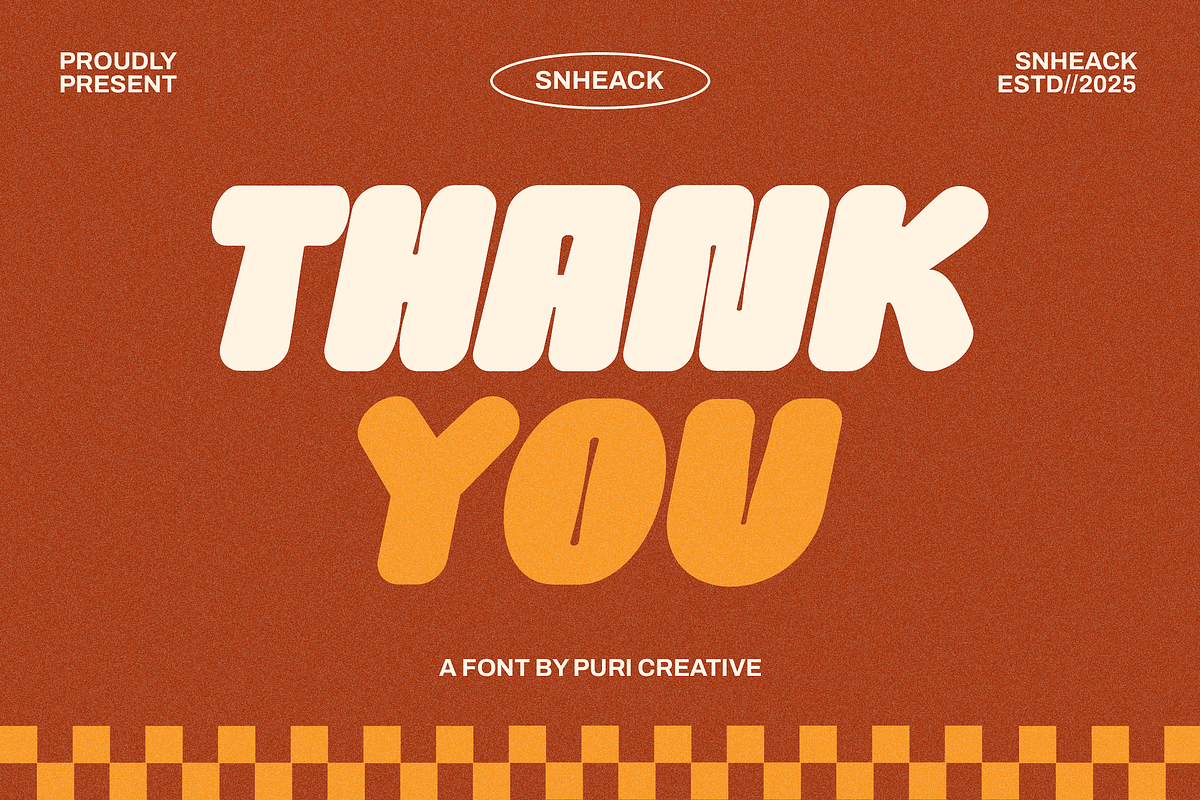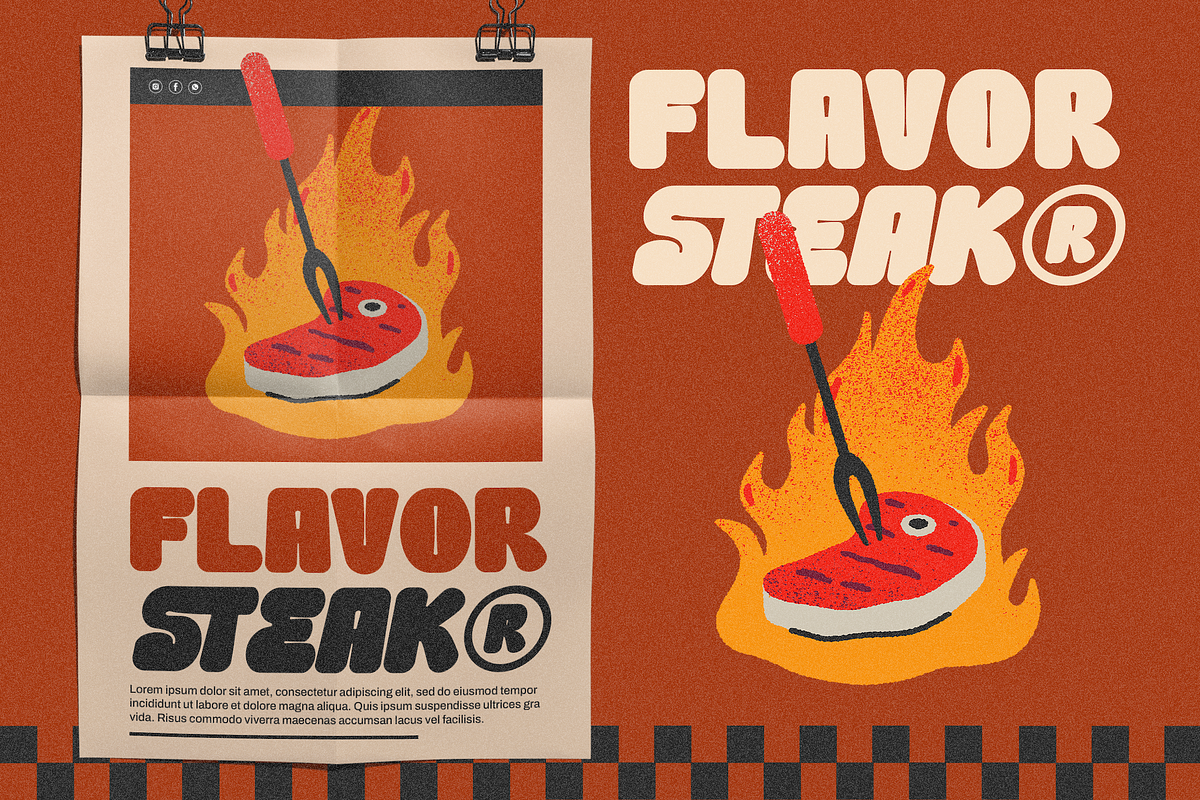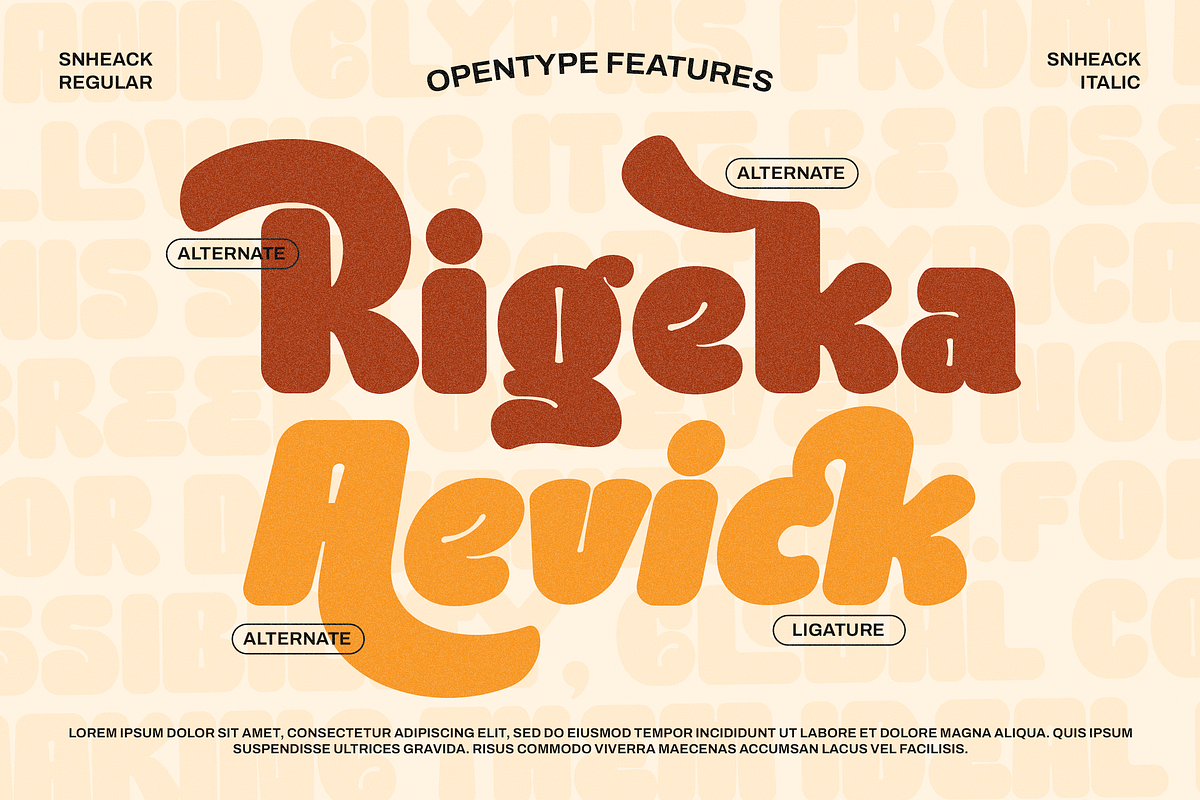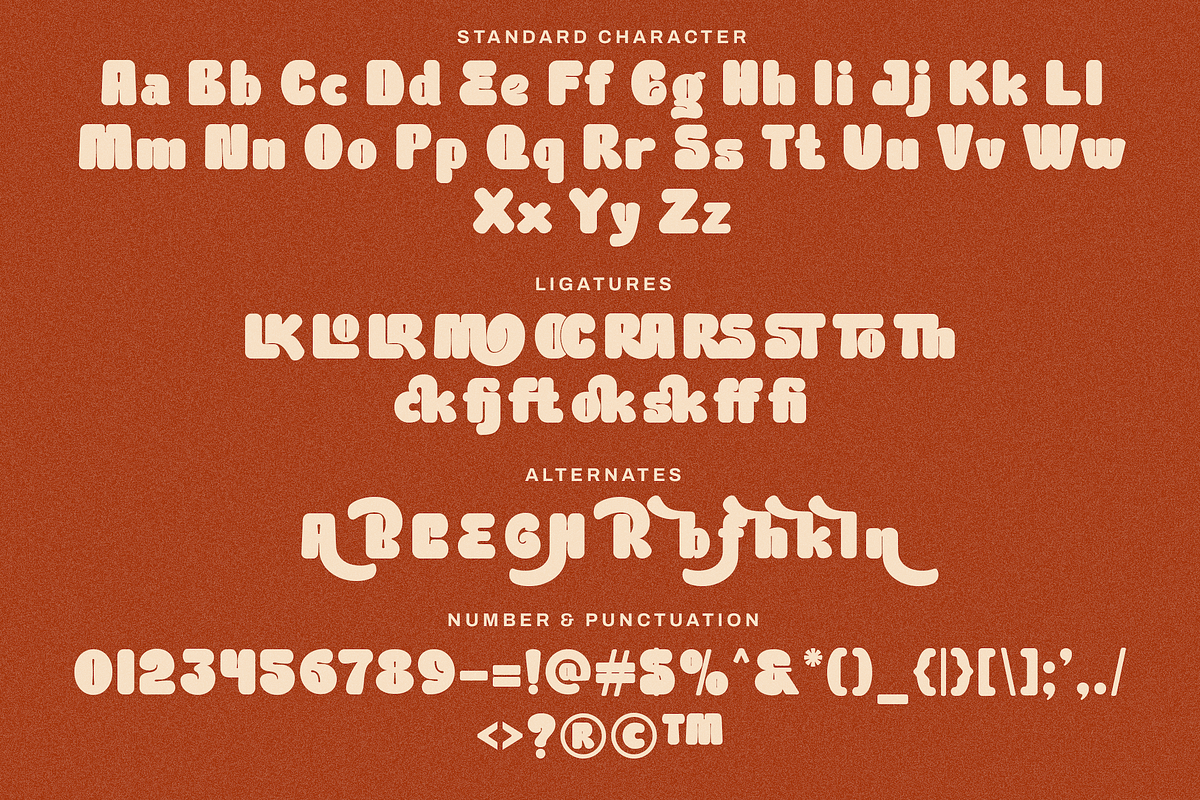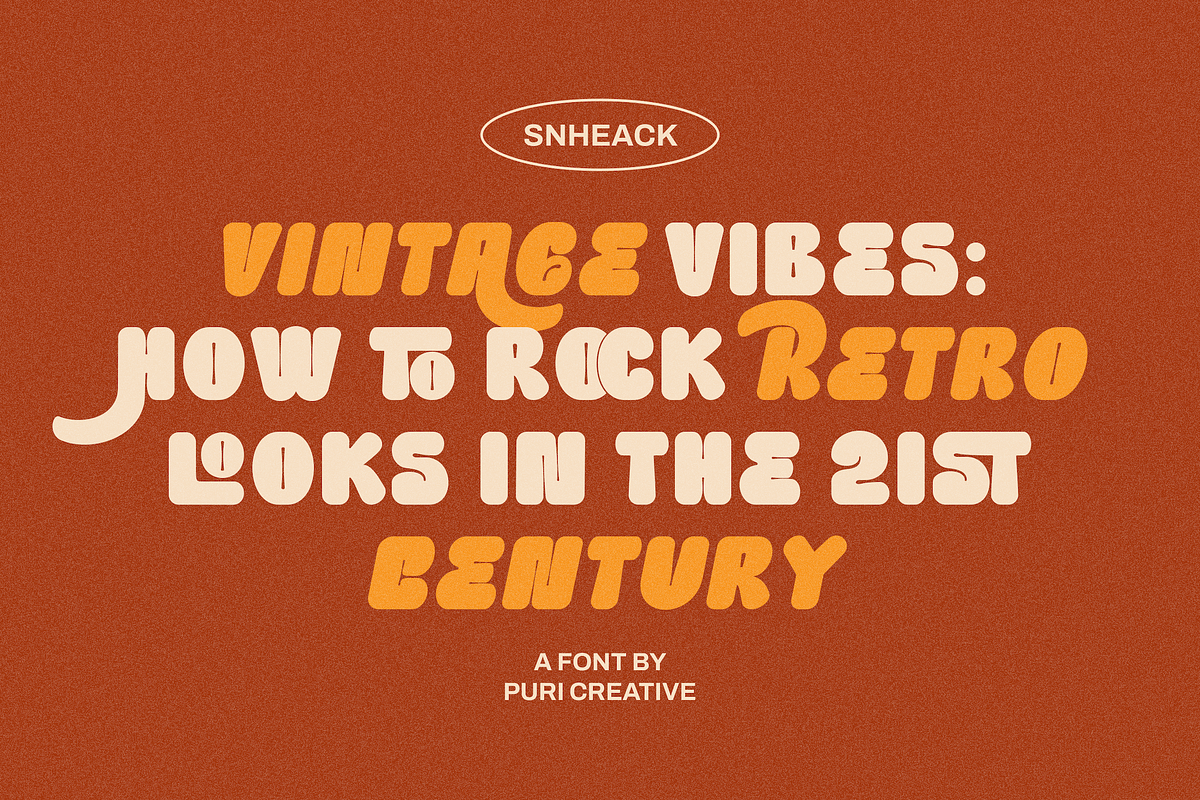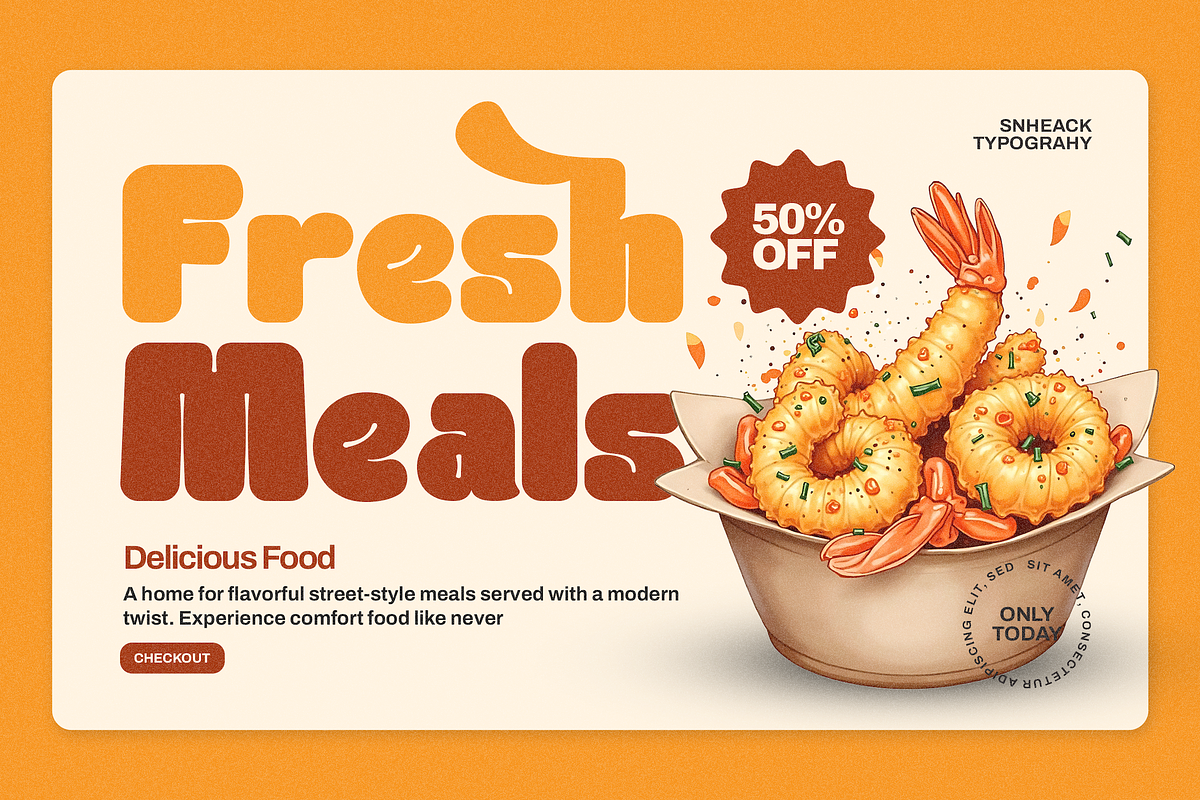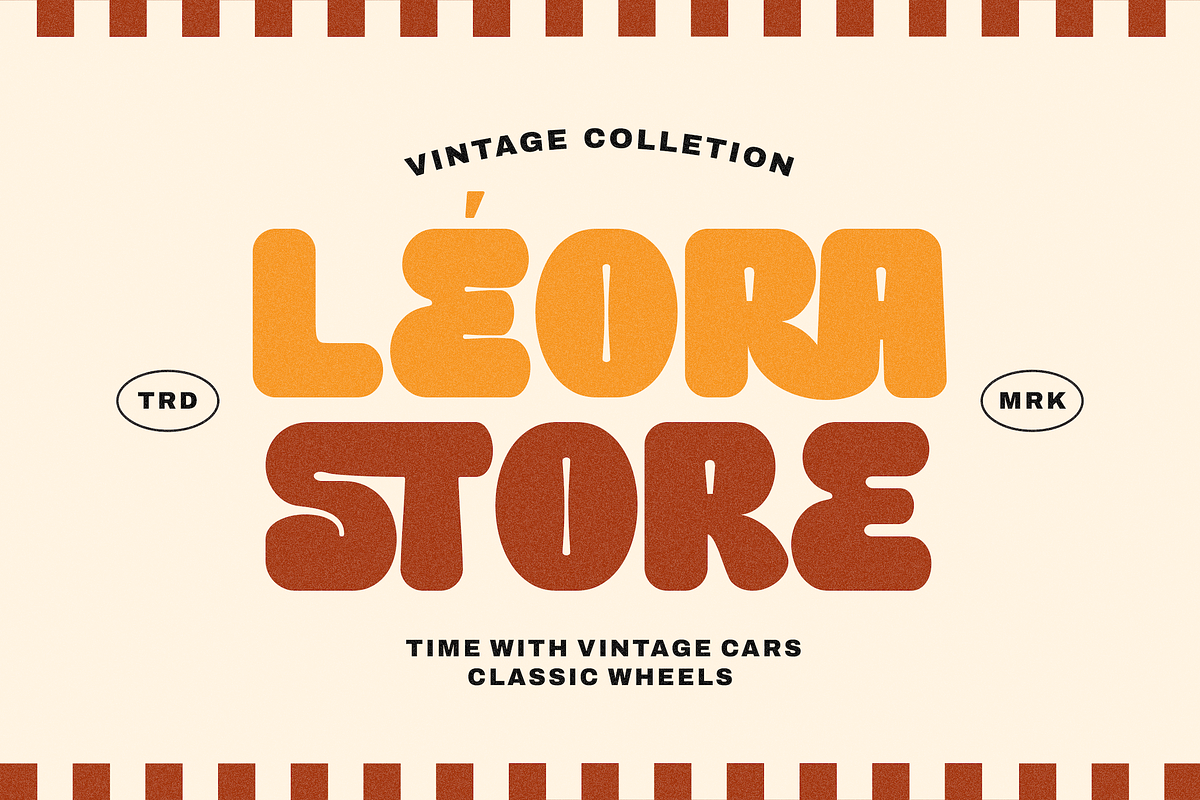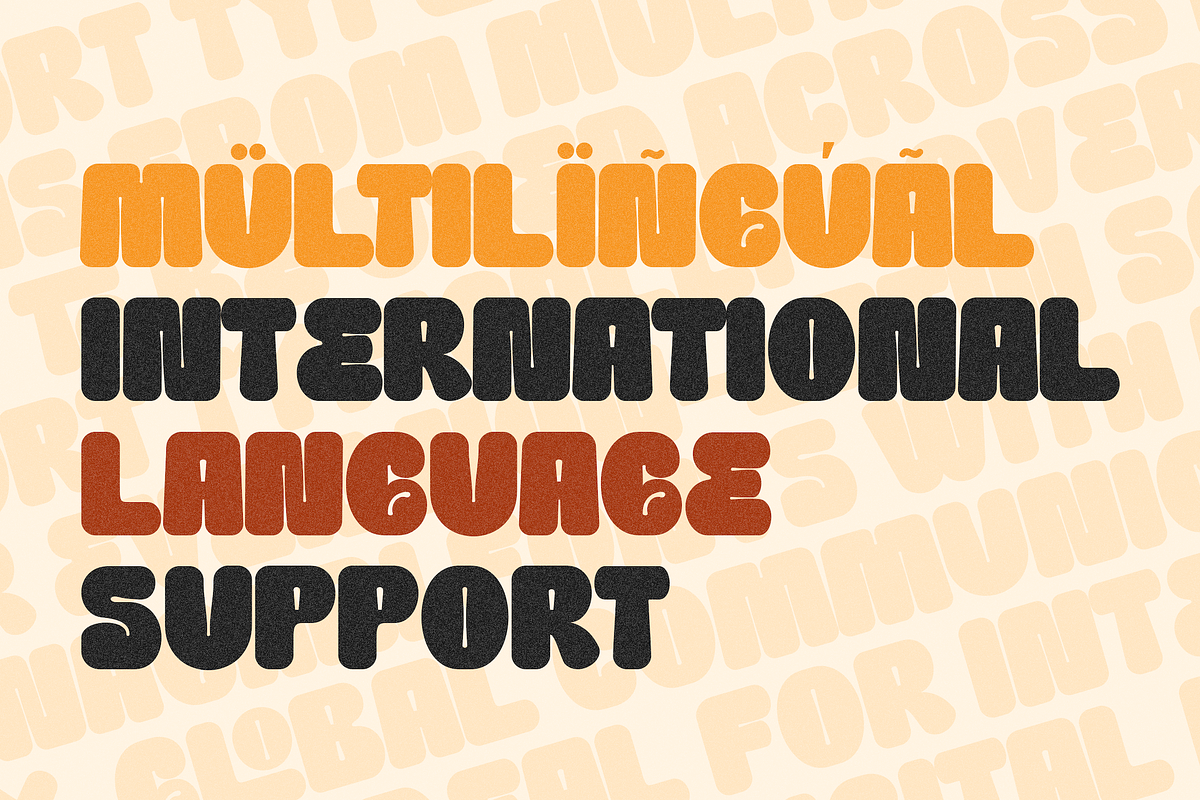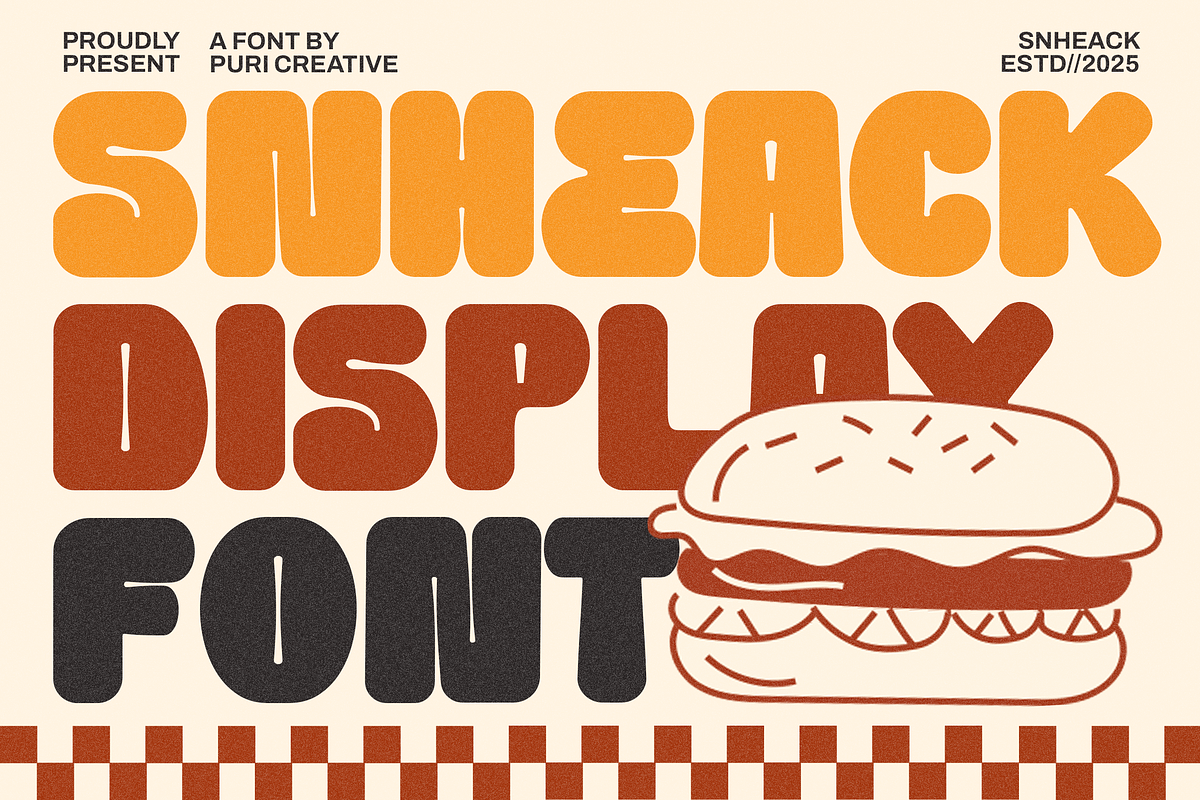
Snheack - Food Display Font
Snheack is a bold and hearty Heavy Food Sans Font that comes in both Regular and Italic styles. Designed to evoke richness and flavor, Snheack is perfect for food branding, packaging, posters, or menus that need a strong, appetizing presence. With smooth curves, solid forms, and a playful attitude, it captures the essence of indulgence and comfort. This font is PUA encoded, which means you can access all of the glyphs with ease!
- Multi Lingual Support